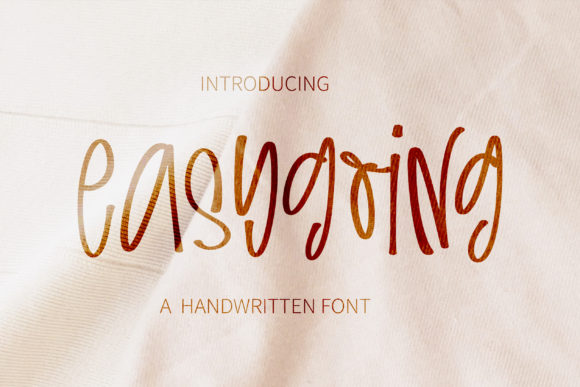
Dive into the world of Easygoing Font, a script font family that exudes laid-back charm and elegance. Its hand-lettered style dances across your designs, adding a touch of whimsy and individuality. With Easygoing Font, you'll embark on a creative journey where anything is possible.
Get swept away by the flowing curves and playful strokes that define Easygoing Font. Its intricate details and expressive characters bring life to your projects, whether it's a wedding invitation that whispers romance, a social media post that demands attention, or a piece of stationary art that captivates the senses.
Easygoing Font is a versatile chameleon, effortlessly adapting to your creative vision. Express your heartfelt messages in an authentic and intimate way, design logos that radiate personality, or craft product packaging that stands out on shelves. With Easygoing Font, the possibilities are as endless as your imagination.
This font is perfect for creating designs that speak to the heart. Its casual elegance adds a personal touch to your projects, making them feel like heartfelt expressions of your creativity. Whether you're a seasoned designer or just starting out, Easygoing Font is your key to unlocking a world of artistic possibilities.
Don't miss out on the chance to add Easygoing Font to your creative arsenal. Let its enchanting allure elevate your designs and take you on a journey of self-expression. Embrace the beauty of handwritten artistry and experience the magic of Easygoing Font today!